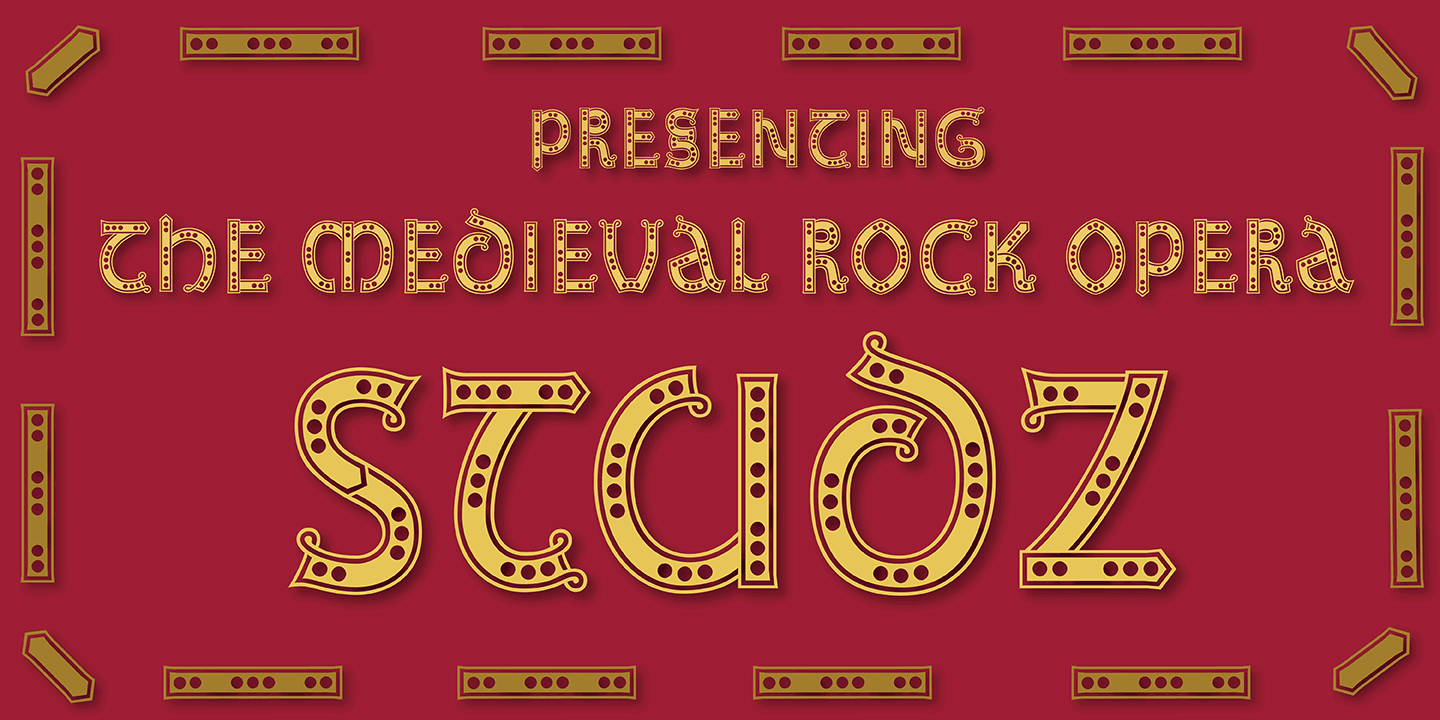
Studz Std is a display font published by Adobe.
Studz was inspired by ornamental lettering from an 8th-century manuscript, to which Michael Harvey, British type designer, has given a “riveting” contemporary flair. The name suggests studded leather.